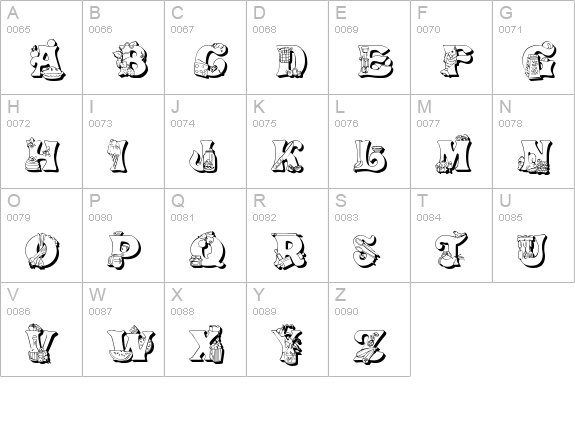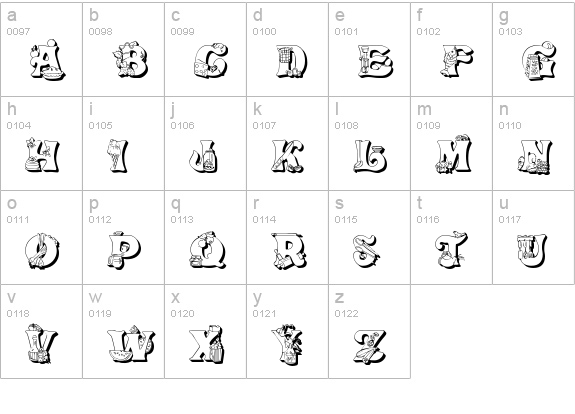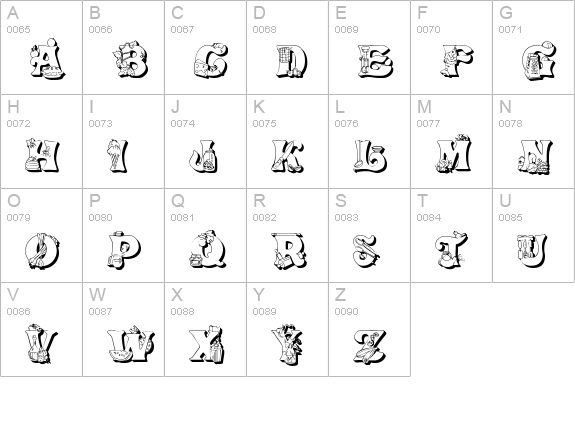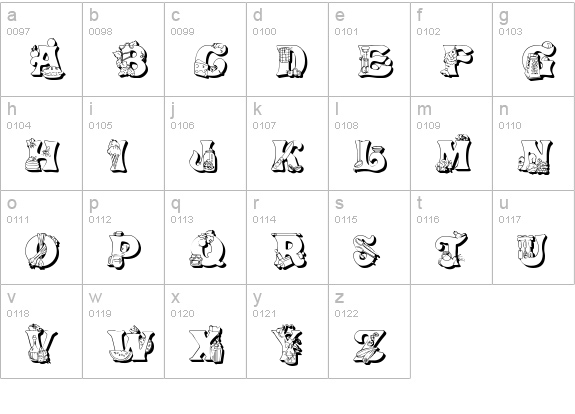
Kitchen Kapers II Font Details
Kitchen Kapers II font is a delightful and charming typeface that exudes a sense of warmth and nostalgia. With its playful and handwritten style, it adds a touch of whimsy to any design project. Whether you're creating a recipe book, a food blog, or a kitchen-themed logo, this font is sure to make a statement. The Kitchen Kapers II font captures the essence of a cozy kitchen, with its slightly uneven strokes and irregular letterforms. It brings to mind the joy of baking cookies with loved ones, the aroma of freshly brewed coffee, and the comfort of a home-cooked meal. Its organic and inviting aesthetic instantly draws you in, creating a sense of familiarity and homeliness. What sets Kitchen Kapers II font apart is that it is not only visually appealing, but it is also free! Yes, you read that right. This font is freely available to download at FontsMarket.com, allowing you to add a touch of whimsy to your design projects without breaking the bank. It's a fantastic opportunity to enhance your creativity and bring a unique charm to your work. Whether you're a professional designer or a DIY enthusiast, Kitchen Kapers II font is a must-have in your font collection. Its versatility makes it suitable for a wide range of applications, from packaging and branding to social media graphics and invitations. You'll find yourself reaching for this font time and time again, as it adds a playful and personal touch to any project. So, why wait? Head over to FontsMarket.com and download Kitchen Kapers II font today. Unleash your creativity and infuse your designs with the warmth and nostalgia that this font effortlessly brings. It's time to make your designs stand out and captivate your audience with this delightful and freely available typeface.